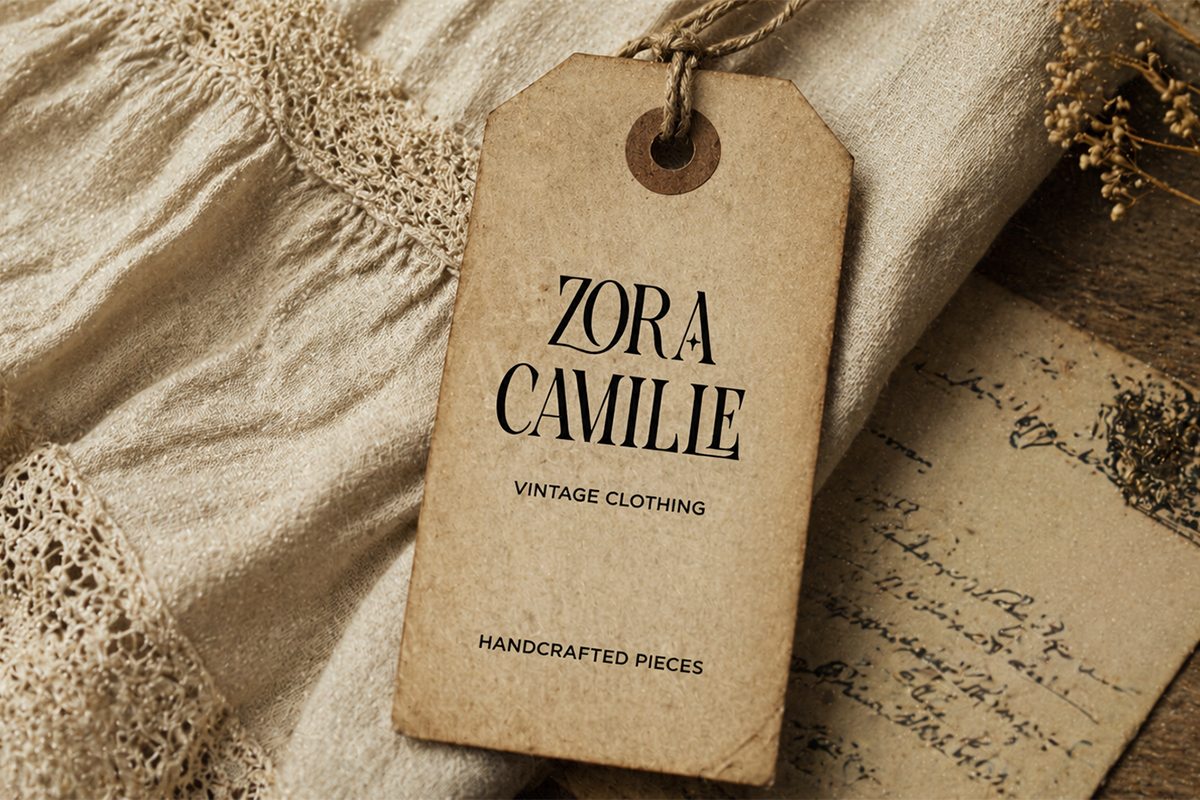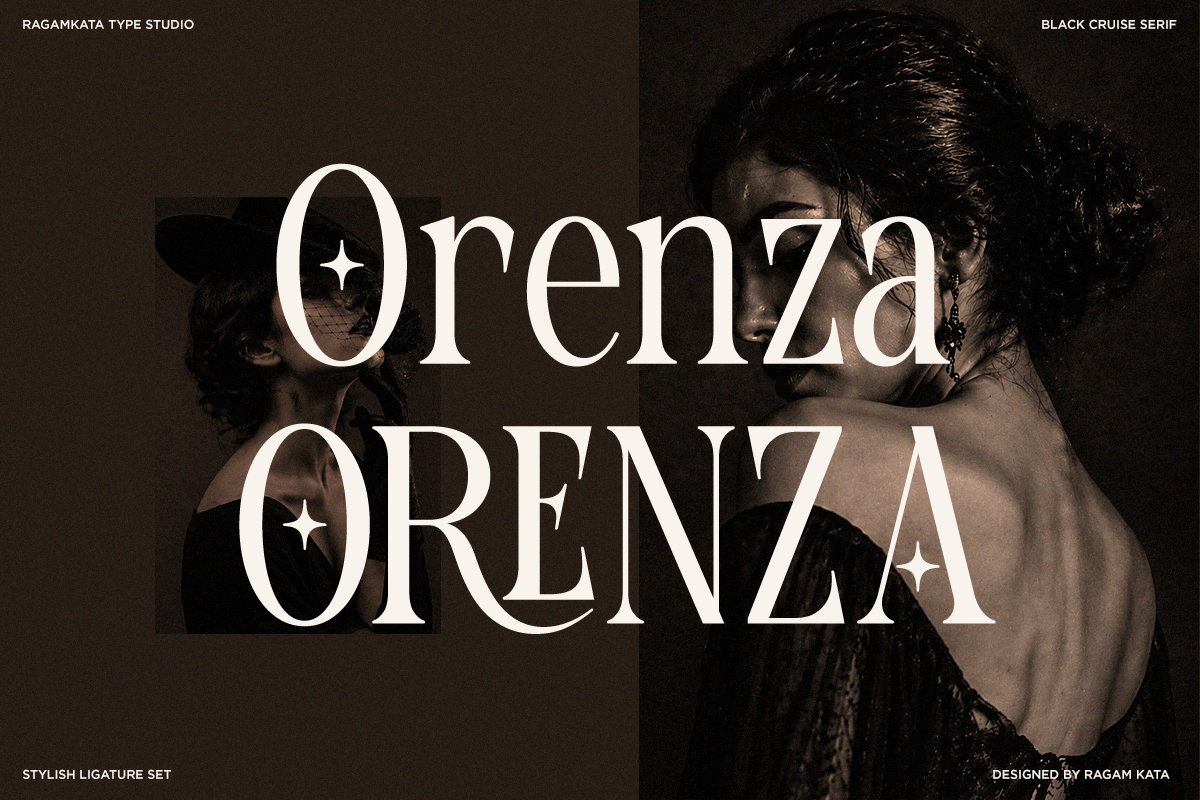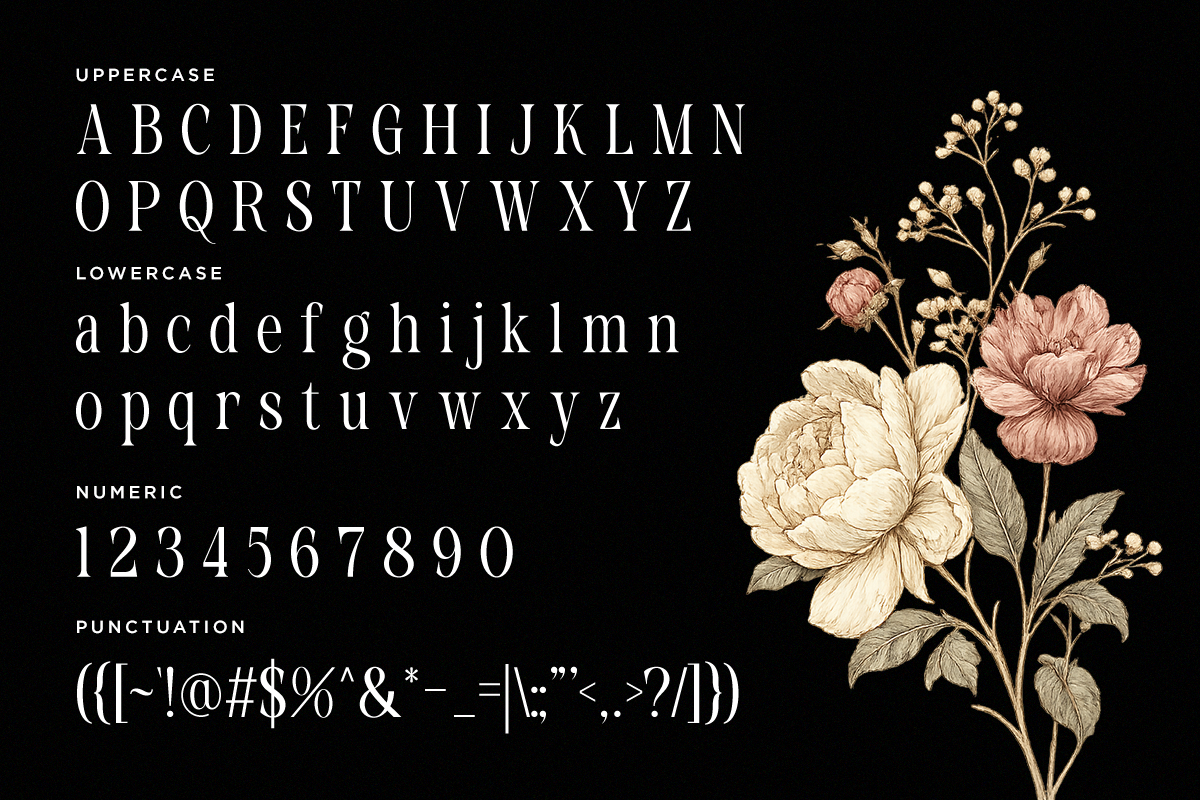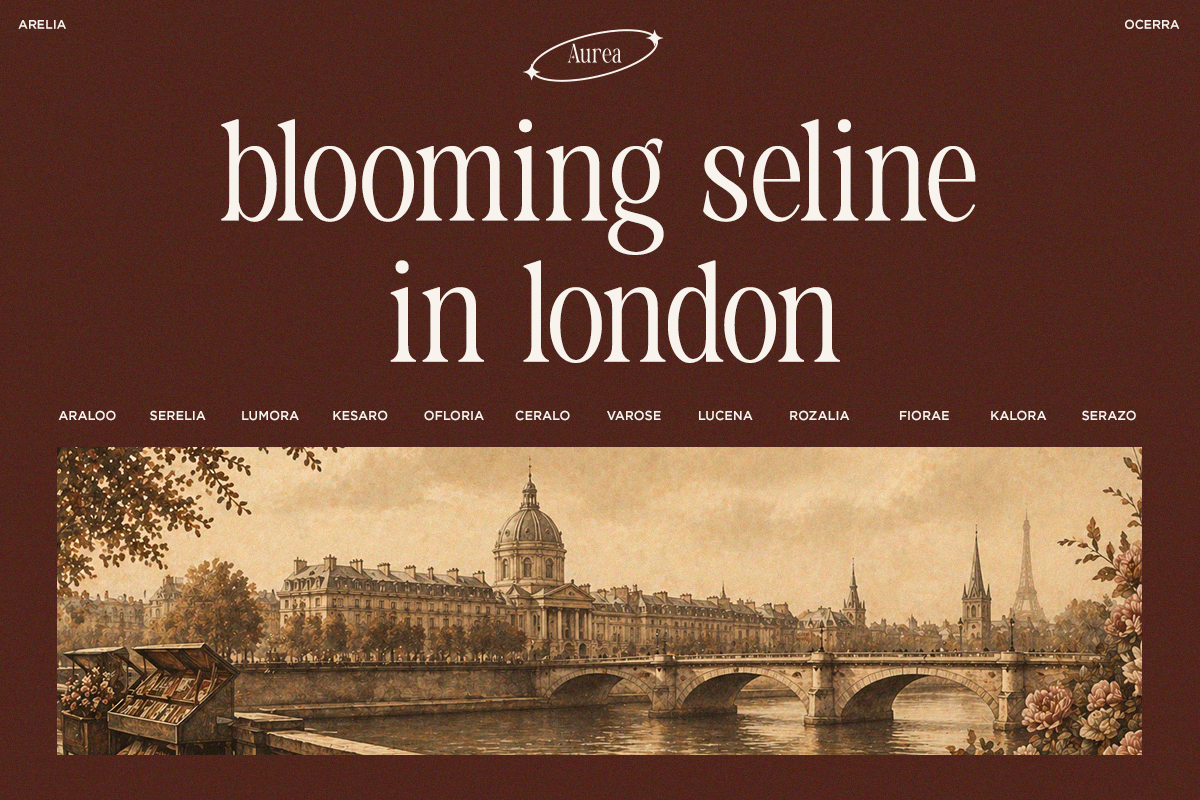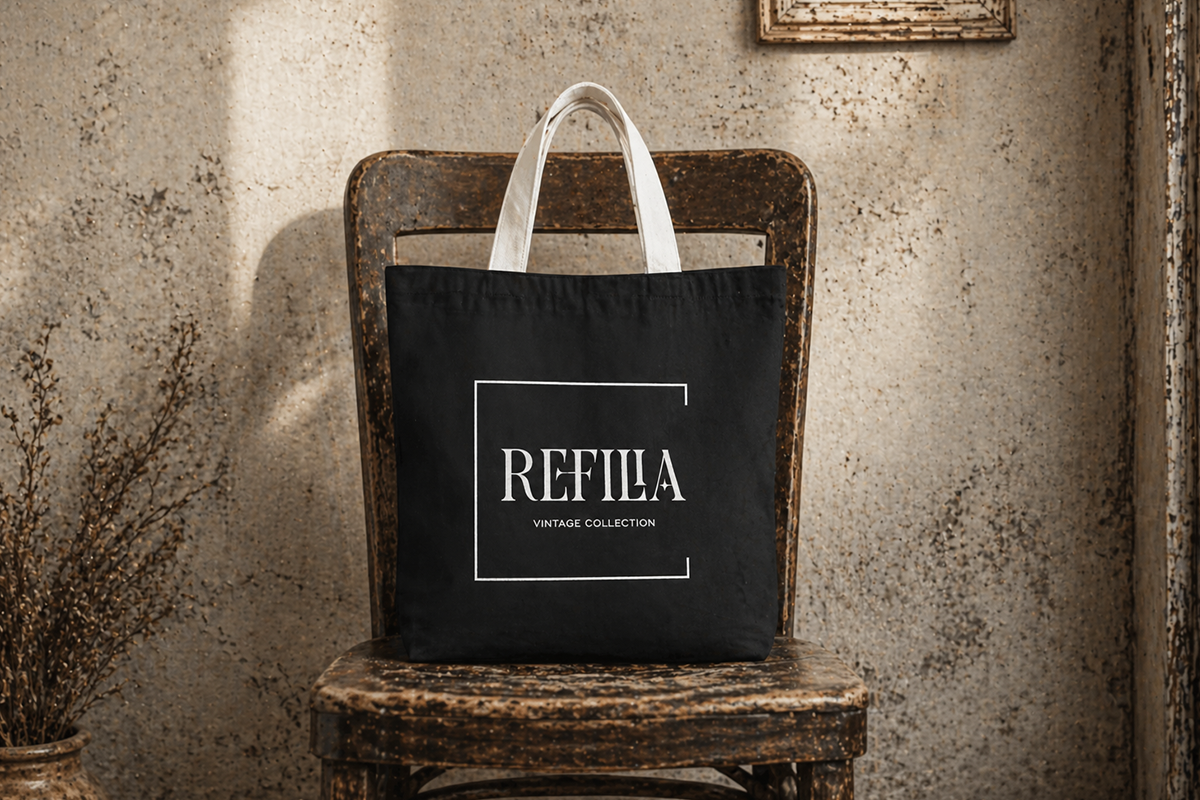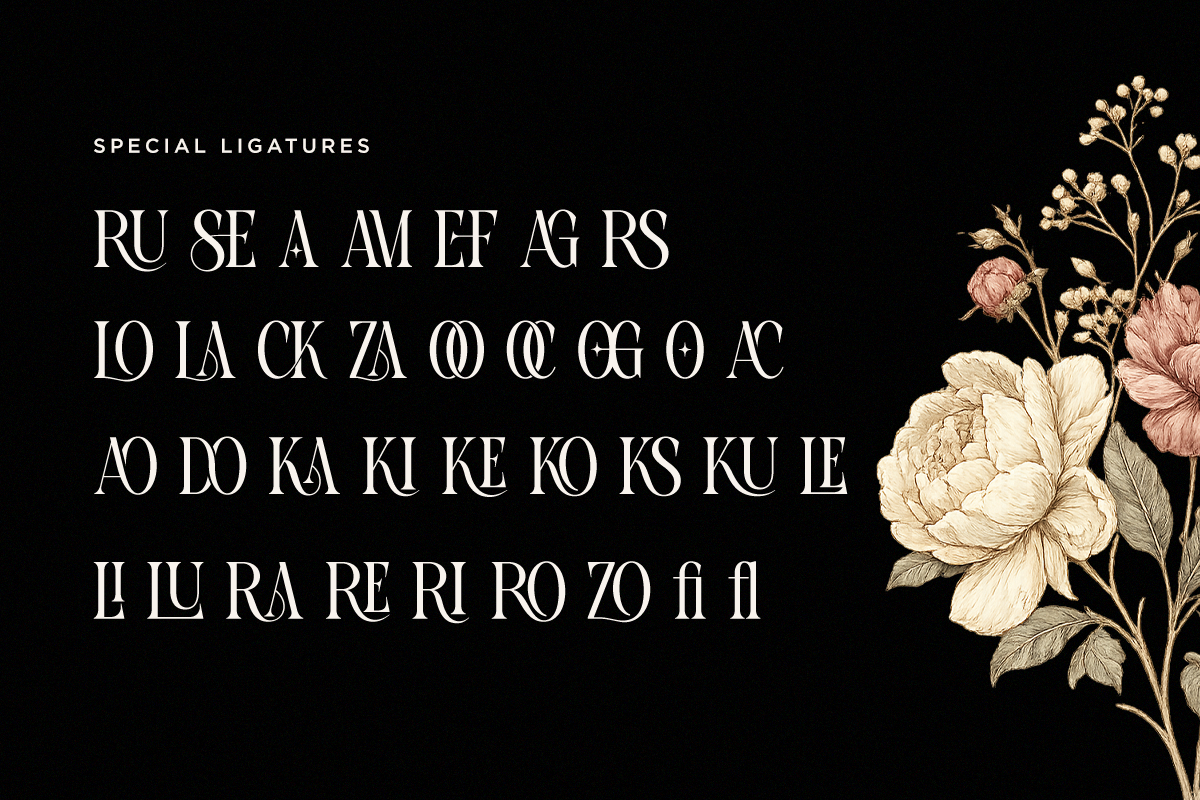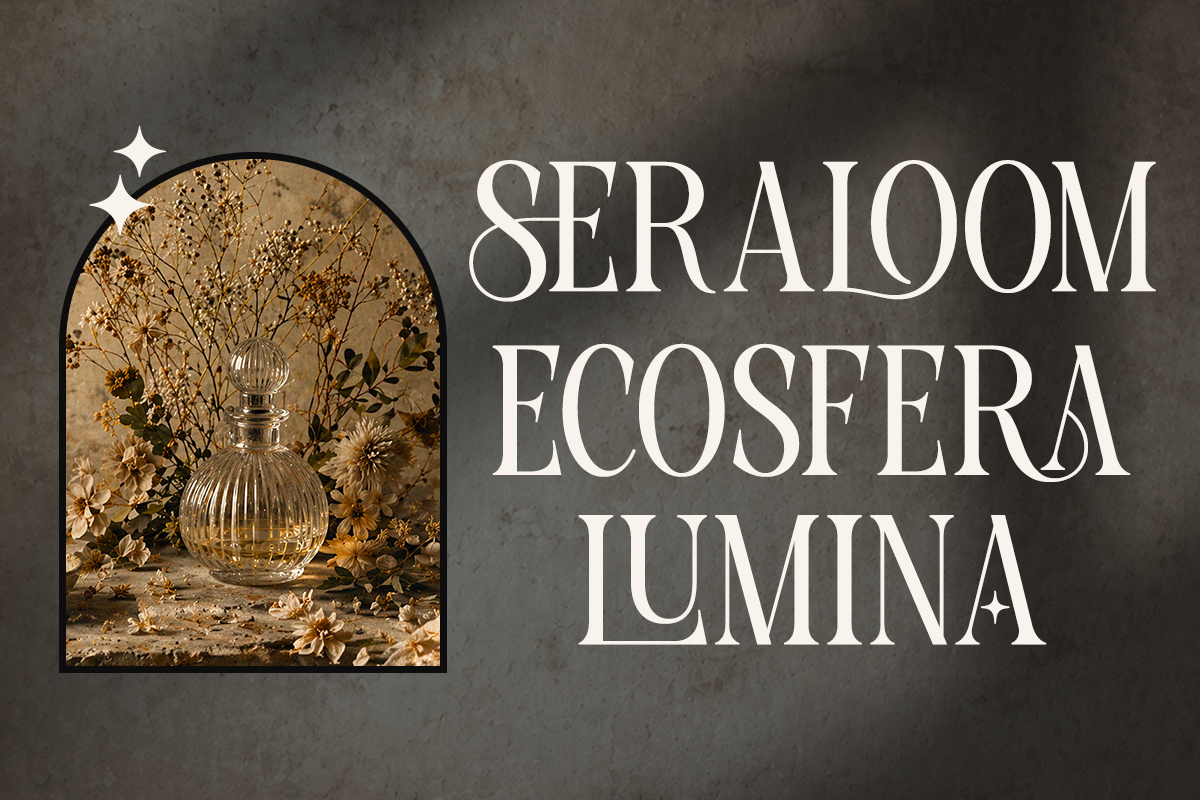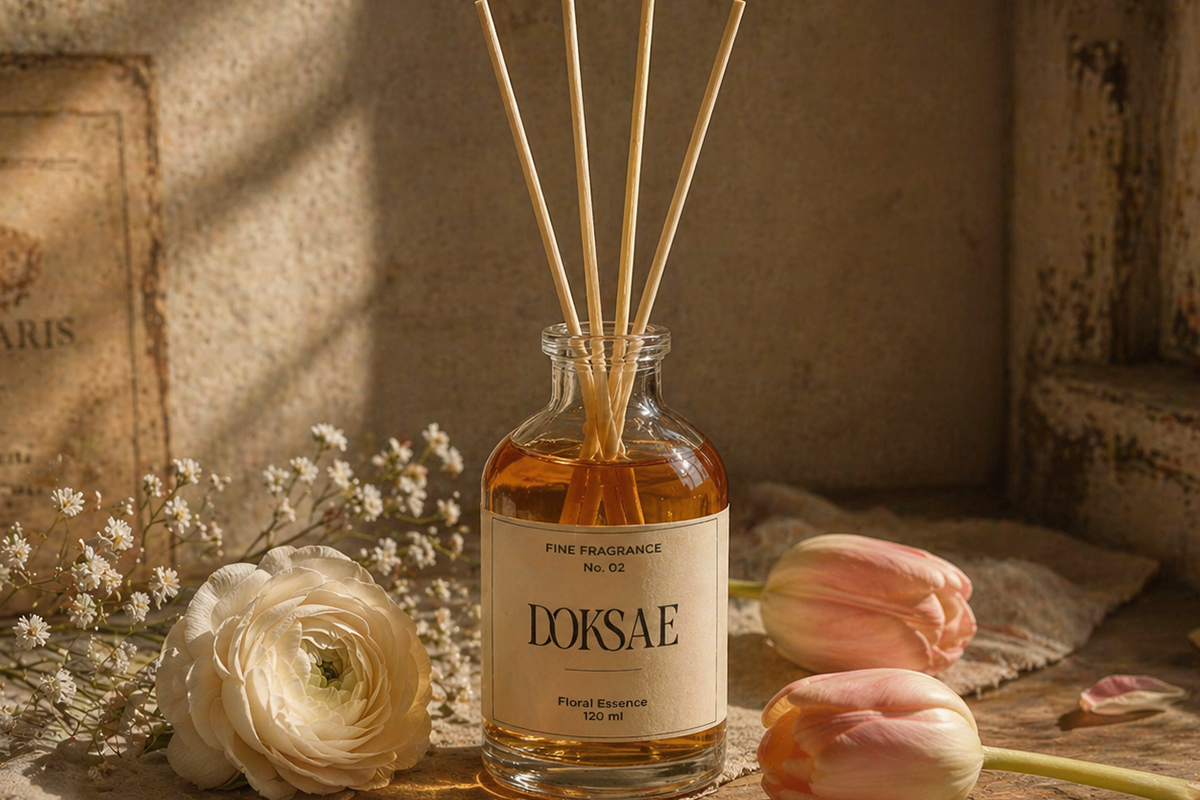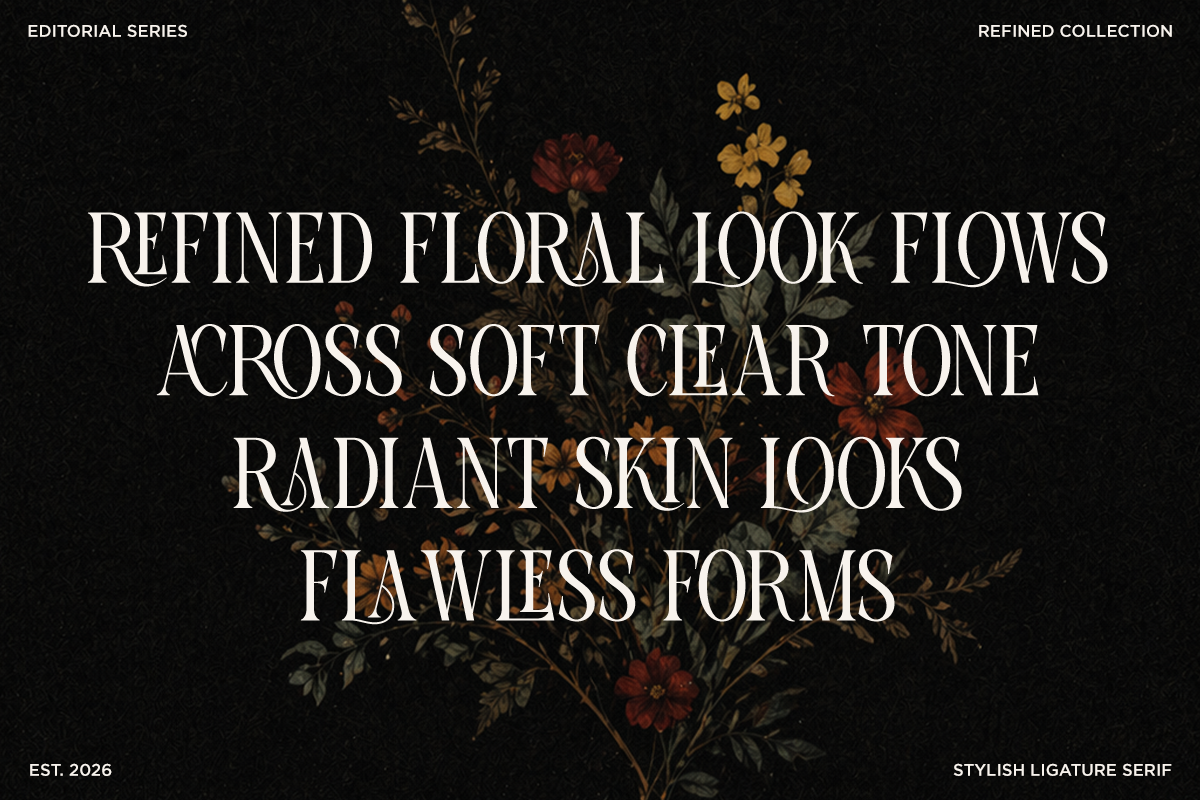
Black Cruise - Luxury Ligature Serif
Black Cruise is a stylish ligature serif font crafted to bring elegance, luxury, and cinematic beauty into every design project. With its graceful curves, artistic ligatures, and high-contrast serif details, this typeface delivers a sophisticated visual identity perfect for modern branding and premium typography needs. The font combines timeless classic serif aesthetics with contemporary editorial styling, making it stand out beautifully in both digital and print applications.
Designed for creatives who want refined and memorable typography, Black Cruise works perfectly for luxury branding, fashion campaigns, cosmetic packaging, wedding invitations, magazine layouts, logos, product packaging, restaurant branding, photography watermarks, social media graphics, and elegant headline designs. Its unique ligature combinations create a smooth and exclusive appearance that instantly elevates any visual composition with a classy and artistic touch.
Ideal For :
Luxury Branding, Fashion Branding, Editorial Design, Magazine Covers, Wedding Invitations, Cosmetic Packaging, Perfume Branding, Restaurant Branding, Photography Logos, Elegant Posters, Cinematic Titles, Social Media Graphics, Product Packaging, Boutique Branding, Beauty Industry Design.
Regular and Italic style
Stylistic Ligatures